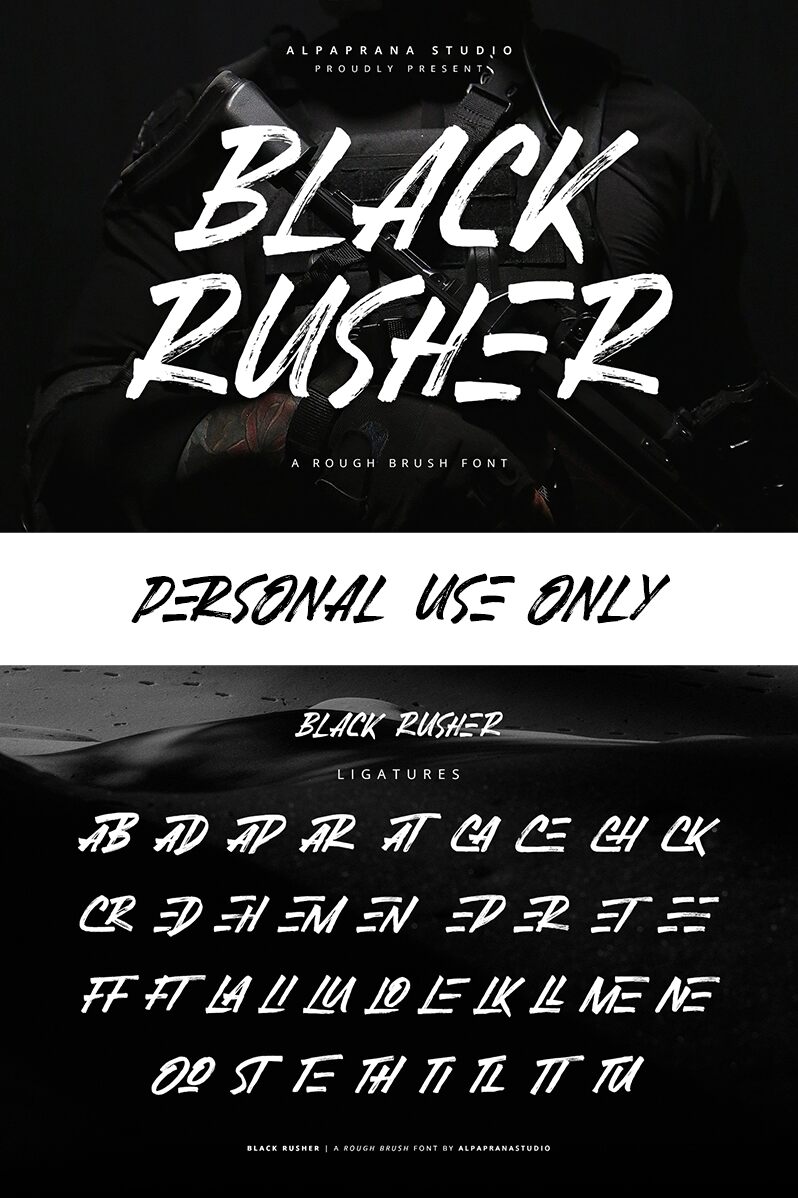
Black Rusher
Black Rusher is a captivating brush-style font crafted by the talented designers at Alpaprana Studio. Its condensed width and dynamic, expressive strokes exude a sense of energy and movement, making it an alluring choice for various design projects. The font's distinct character and striking aesthetic appeal can elevate the visual impact of headings, logos, and typographic-driven compositions, seamlessly blending contemporary flair with a touch of vintage charm.
Versatile in its application, Black Rusher's versatile nature allows it to shine in a diverse range of design contexts. Its bold, attention-grabbing presence makes it an ideal selection for headlines, branding, and editorial layouts, while its condensed structure lends itself well to space-constrained designs. Designers seeking to infuse their work with a dynamic, handcrafted feel will find Black Rusher to be a captivating and versatile addition to their typographic toolkit.